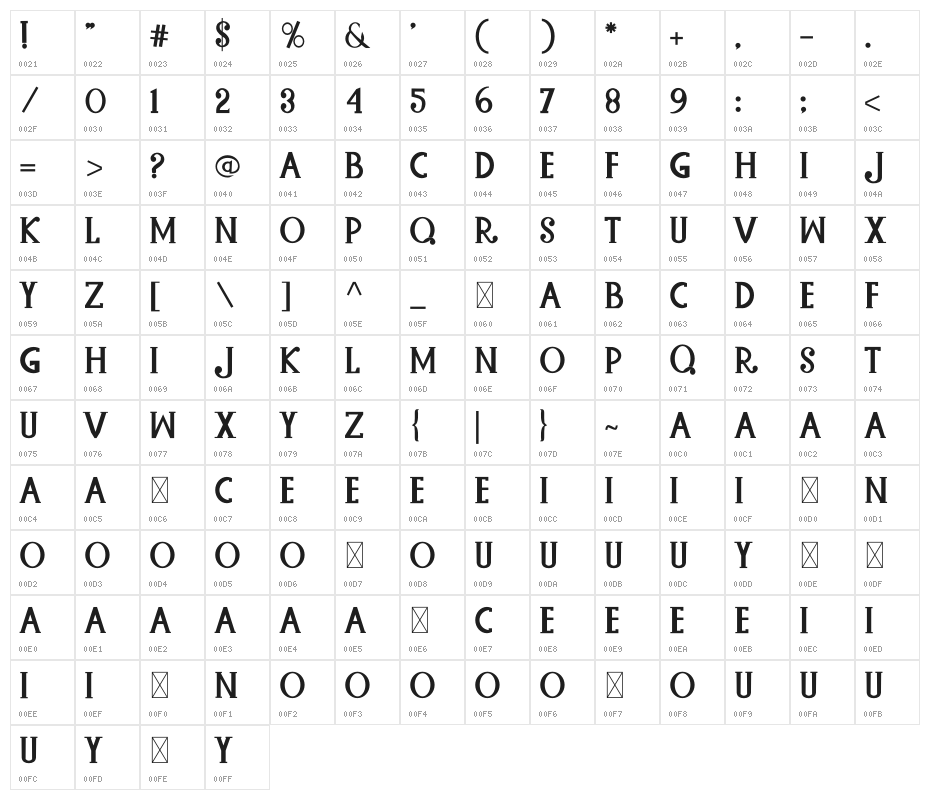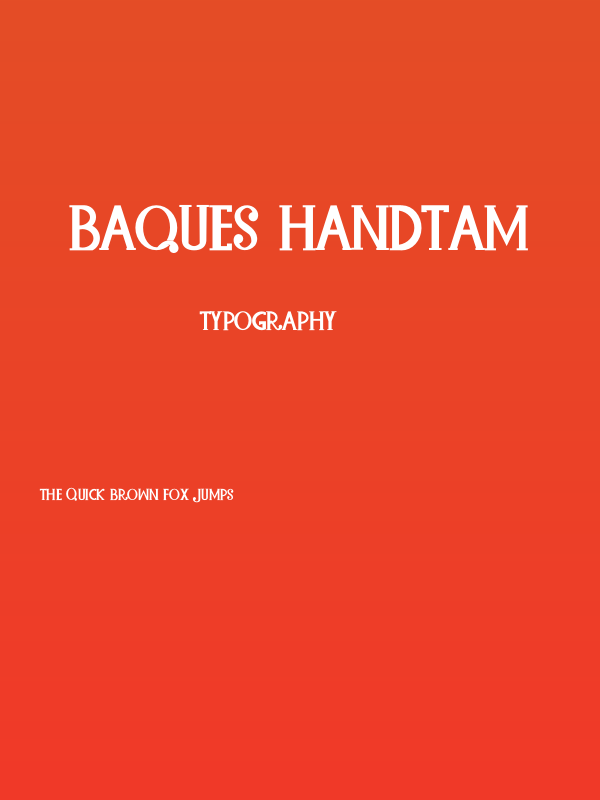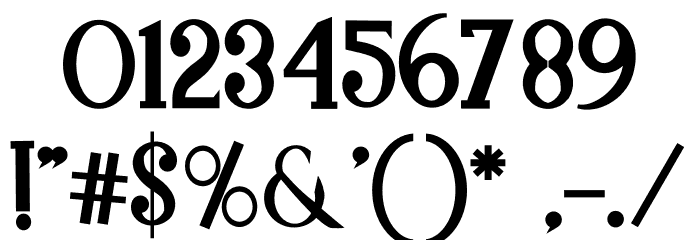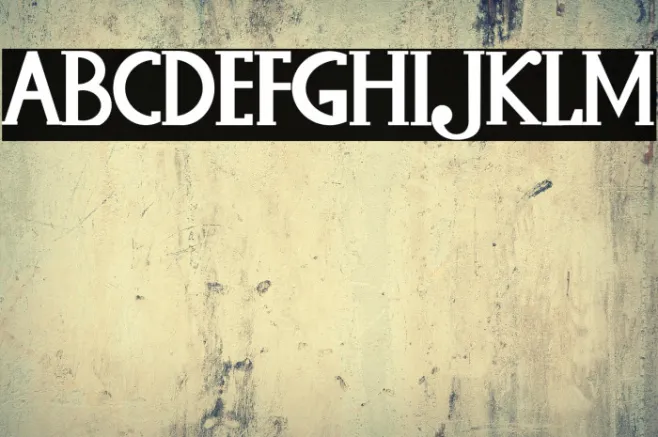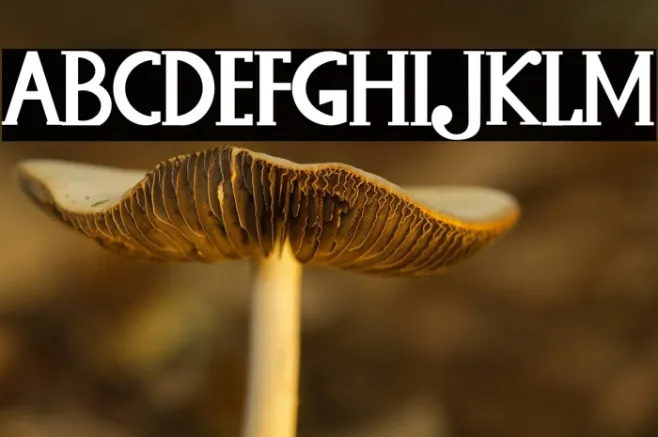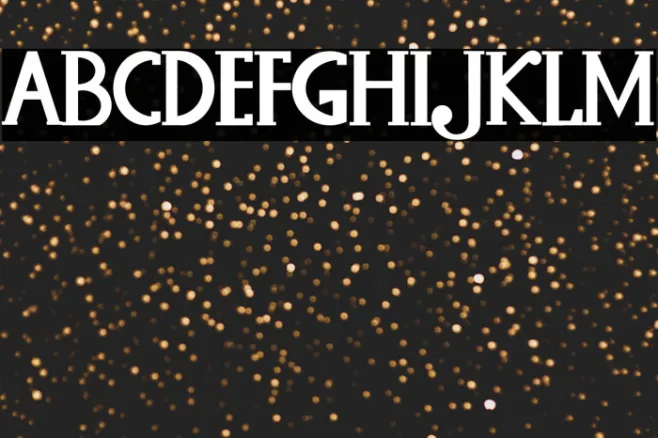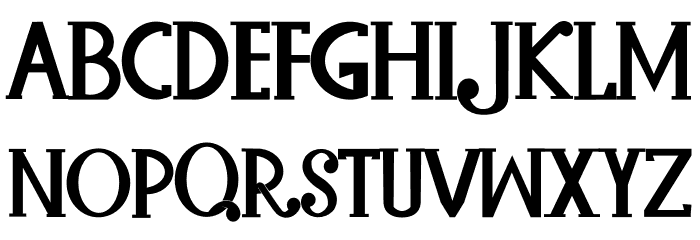
Baques Handtam Font
Baques Handtam Description
This font showcases a bold and striking design with a classic serif style. The characters are well-defined with thick strokes and prominent serifs, giving it a strong presence. The uppercase letters feature unique elements, such as the distinctive tail on the 'Q' and the curved leg of the 'R'. The numerals are equally bold, maintaining the same weight and style as the letters. Special characters are included, with a consistent design that complements the overall aesthetic. The font's high contrast in stroke thickness adds to its dramatic appearance, making it ideal for attention-grabbing headlines or titles.